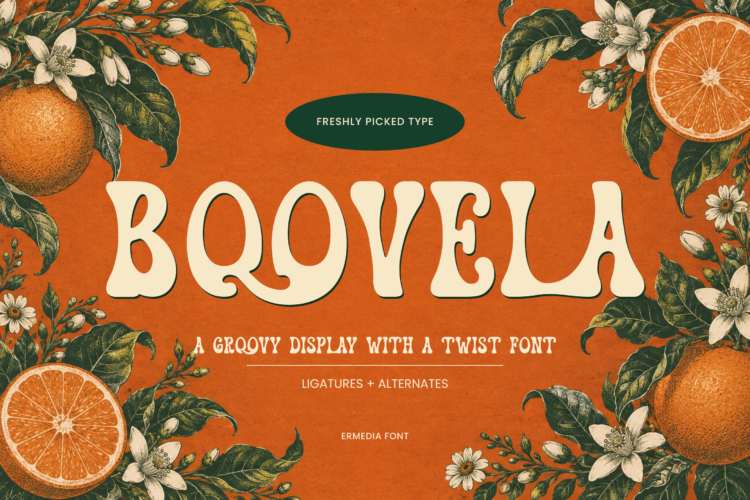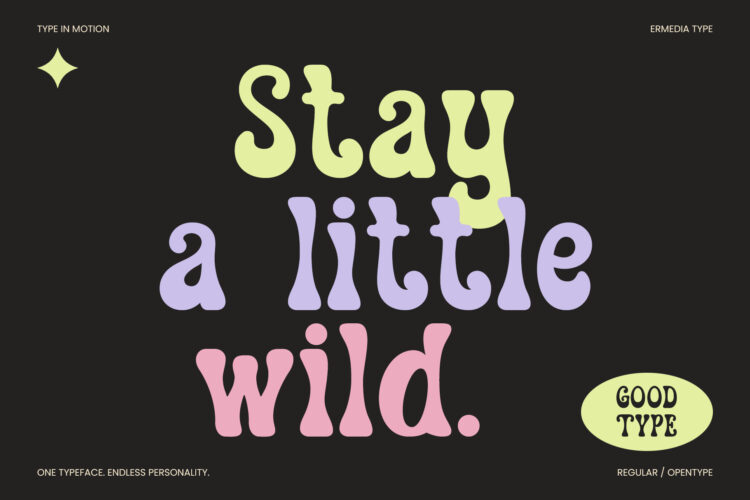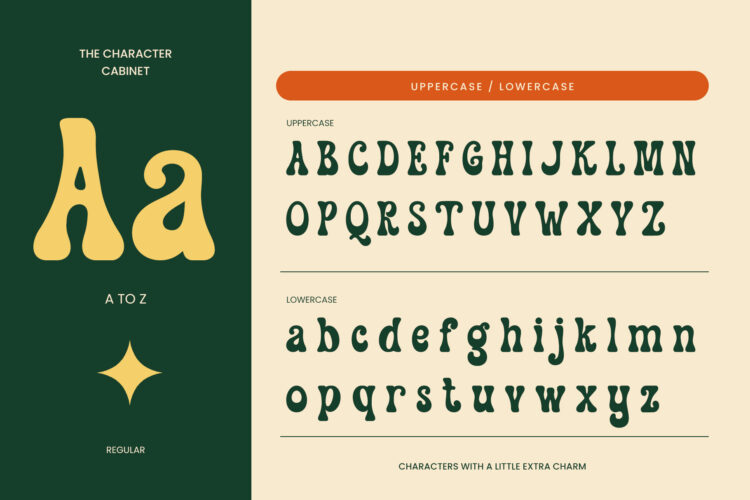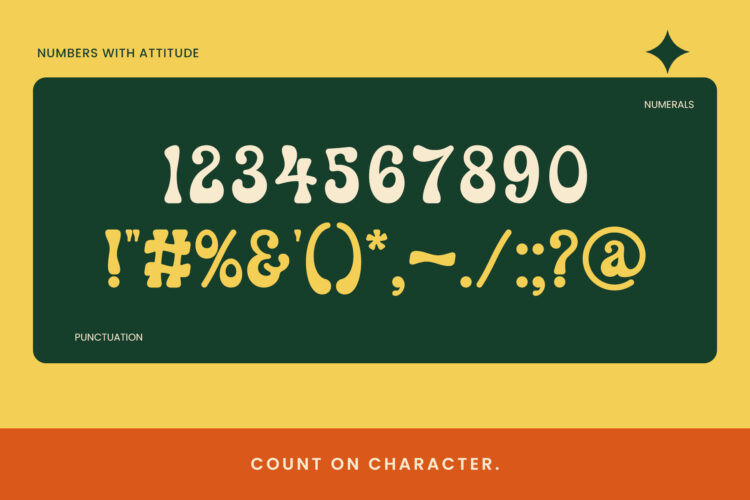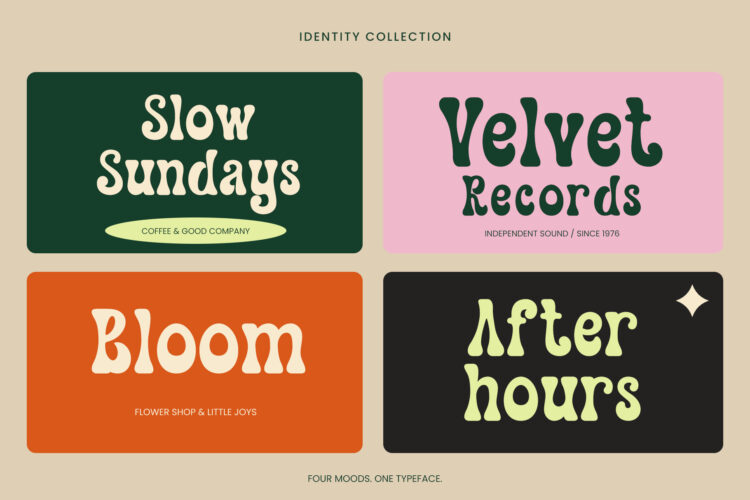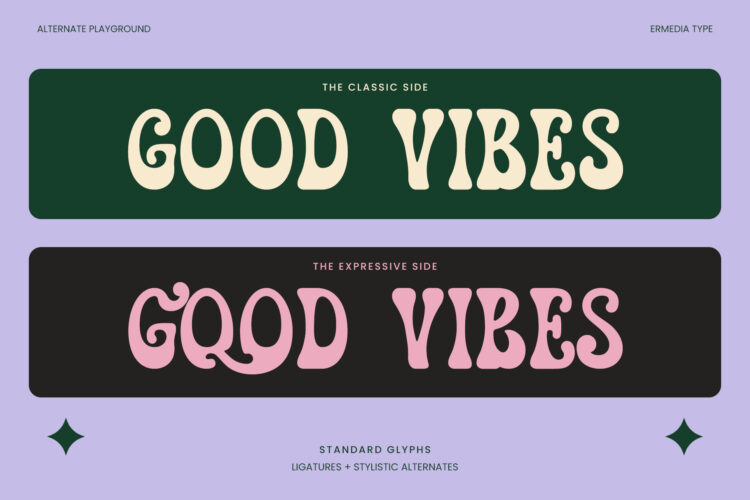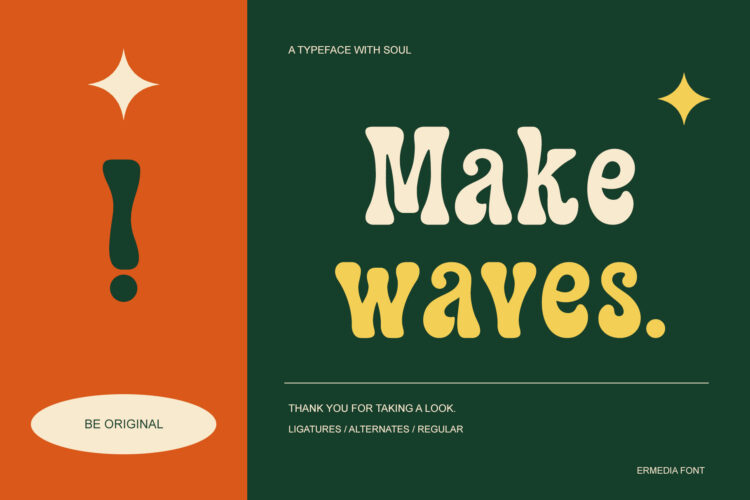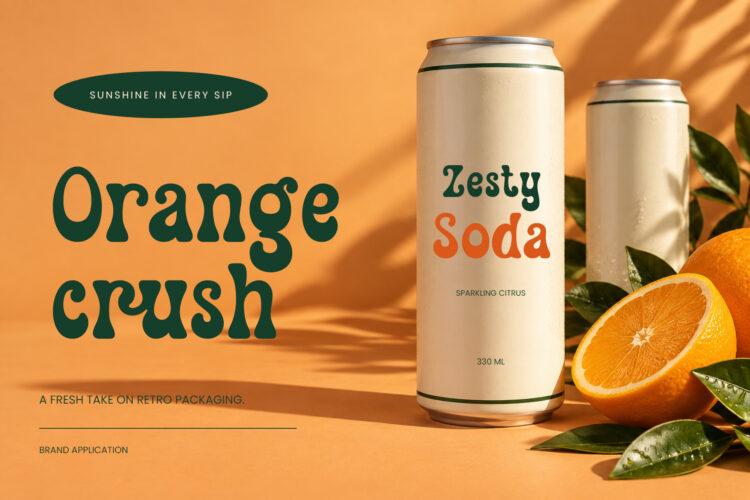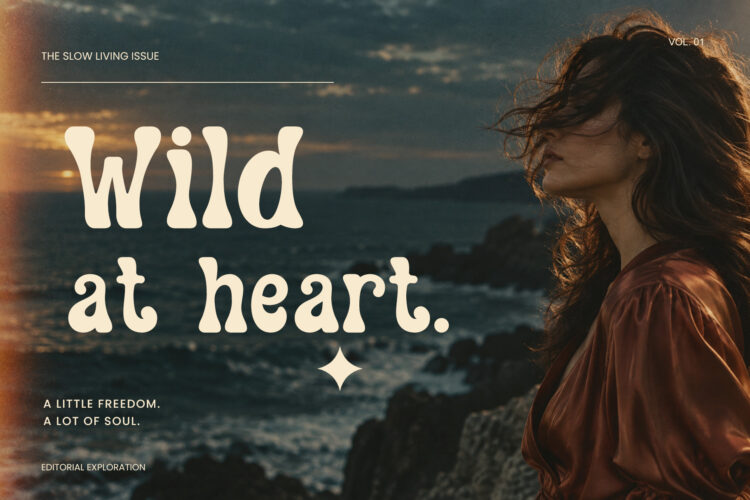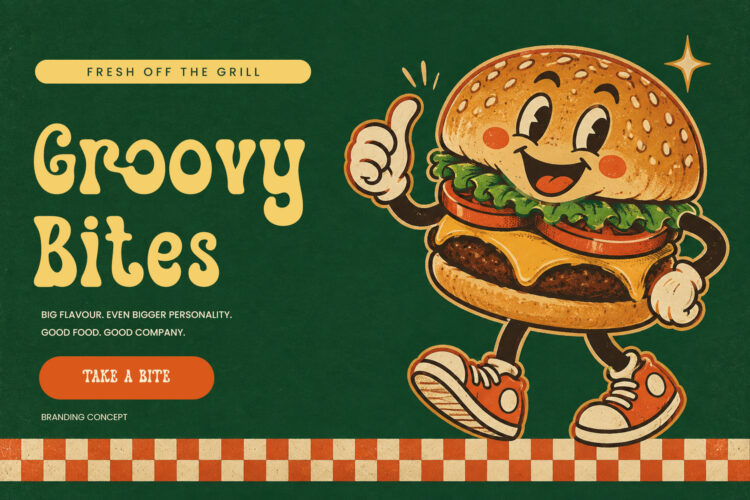
Boovela
Boovela display serif is a Funky and groovy font type for all branding and logo designs. This Funky groovy display font has a beautiful character. This font is suitable for invitation card designs, cool logos, movie titles, movie names, business cards, book titles, brand names, and various other designs. Boovela display serif is a smooth display font that exudes sophistication and the moment. Its stylish ligatures make this font a perfect partner for any project.
Boovela || Retro Groovy Display Font